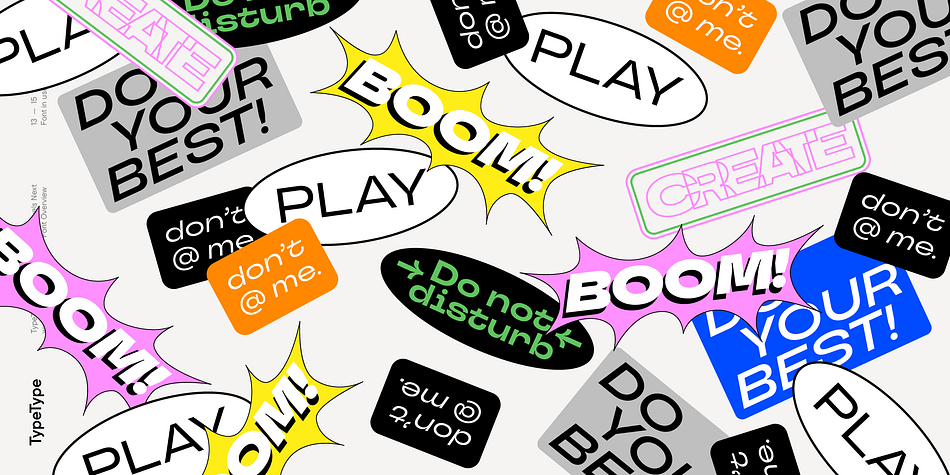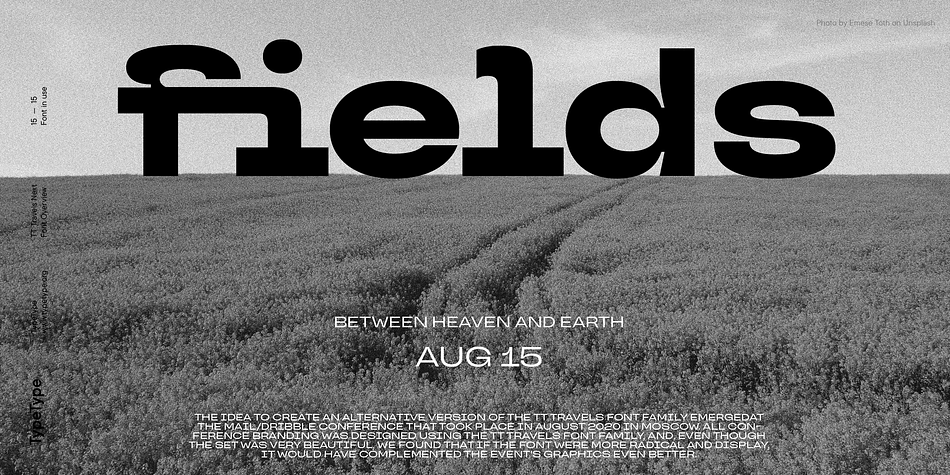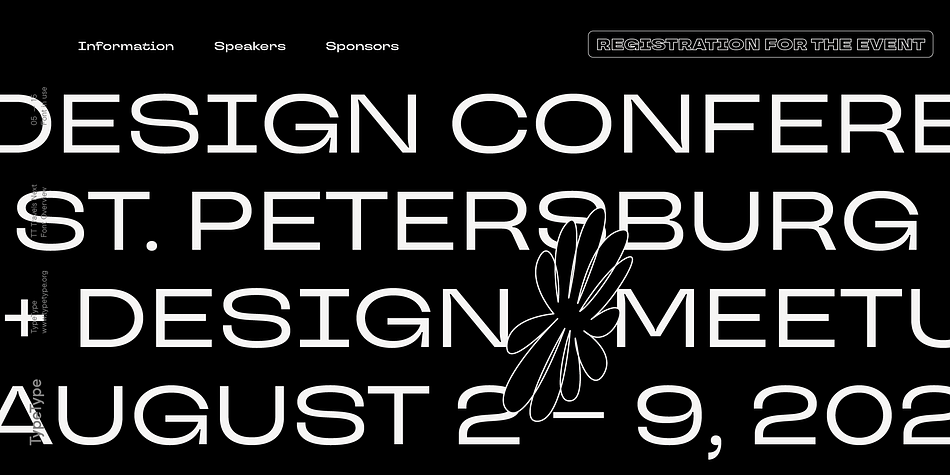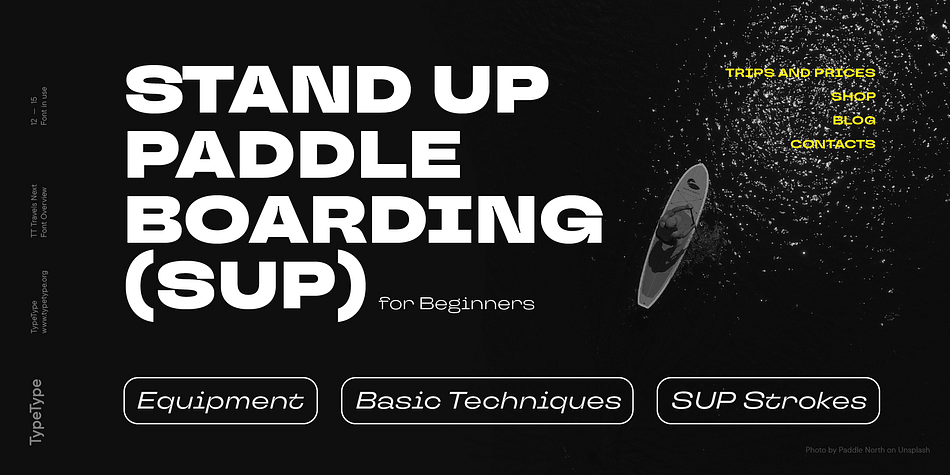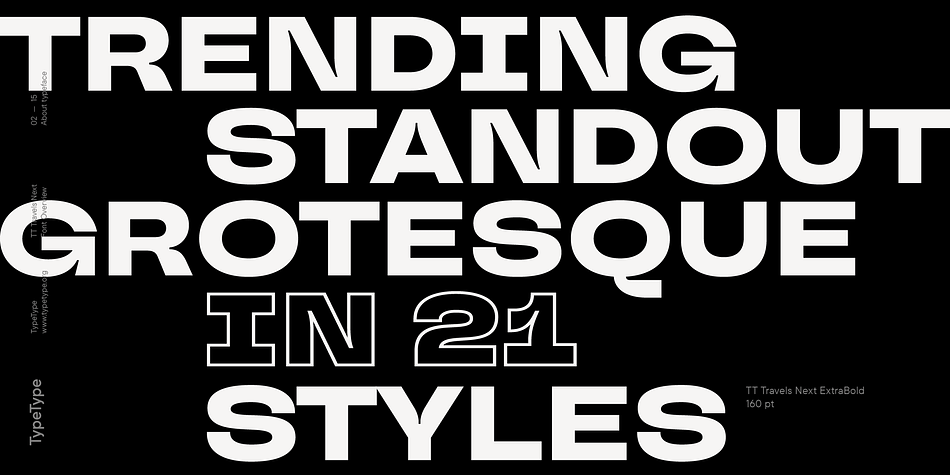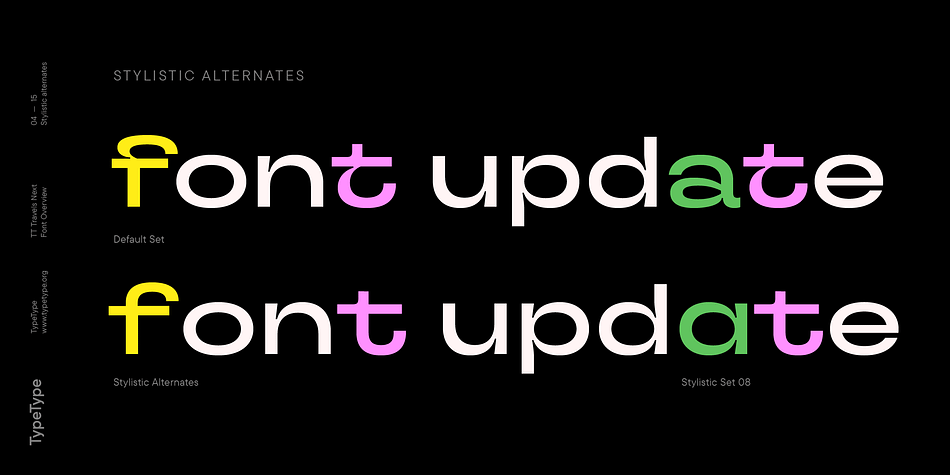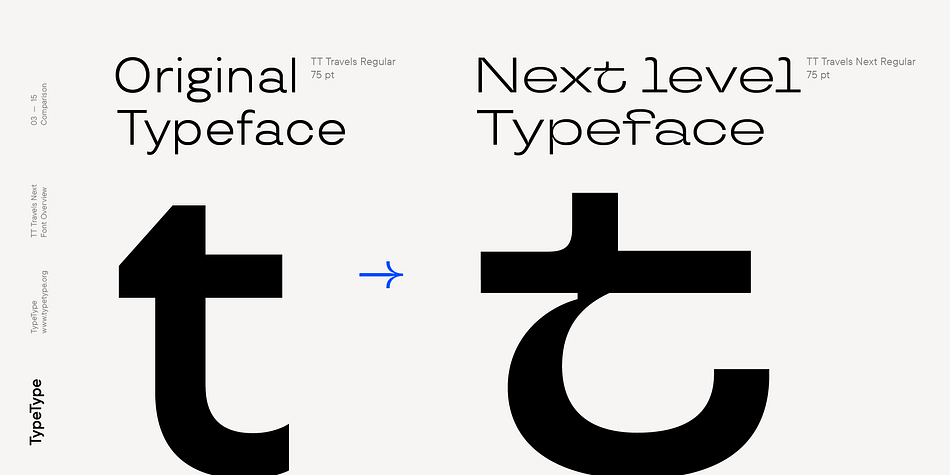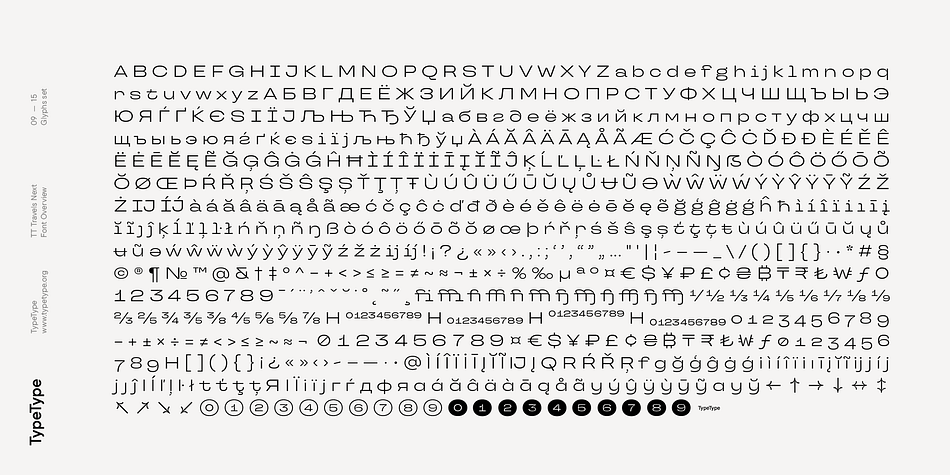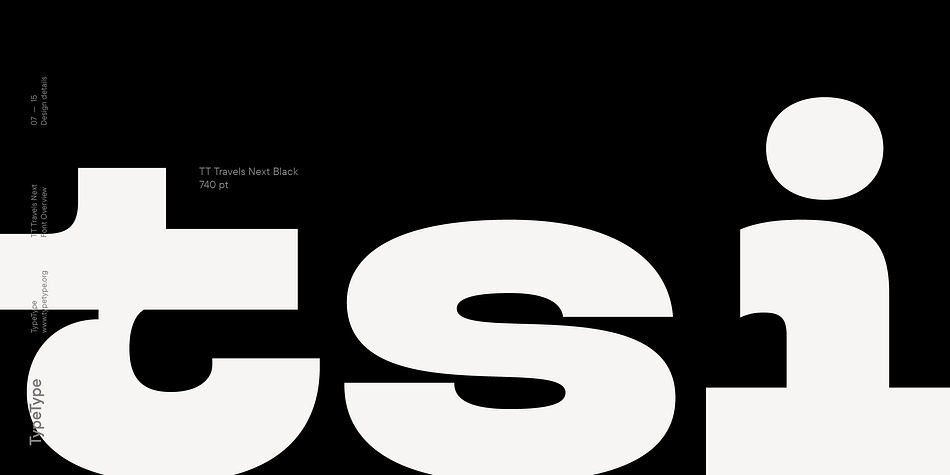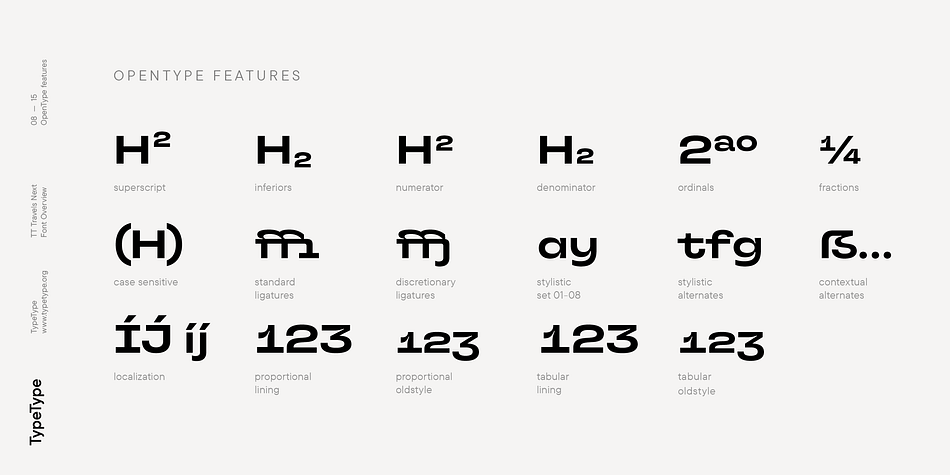
Designed by Kseniya Karataeva and TypeType Team, TT Travels Next is a display sans and sans serif font family. This typeface has twenty-one styles and was published by Typetype.
The idea to create an alternative version of the TT Travels font family emerged at the “Mail.ru Design Conf x Dribbble Meetup” that took place in August 2020 in Moscow. All conference branding was designed using the TT Travels font family, and, even though the set was very beautiful, we found that if the typeface were more radical and display, it would have complemented the event’s graphics even better.
Thus, was born the idea for the TT Travels Next typeface, which was to create a very trendy and modern wide display sans serif for use in different sets, be they print or web. TT Travels Next is an experiment answering the “what-if” question of what would happen if the original TT Travels looked different, less compromising and more radical.
The typeface has very wide proportions and characters that almost do not get narrower as you move from the bold styles to a light one. TT Travels Next has an exaggerated closed aperture, low contrast, noticeable visual compensators, and a harmonic combination of soft and sharp shapes.
In inclined styles, we have purposefully increased the slant up to 14 degrees so that you can type slashing dynamic inscriptions. In addition, the TT Travels Next typeface has two great outline styles which match the upright styles perfectly and complement them, and also work well as display styles.
The TT Travels Next typeface consists of 21 fonts: 9 upright and 9 inclined styles, two outline styles, and one variable font with two variability axes (width and slant). Each style consists of 757 characters and supports over 190+ languages. The typeface has 26 useful OpenType features, such as stylistic alternates that change the design of characters responsible for the style, ligatures, pointers, circled figures, and many other useful features.